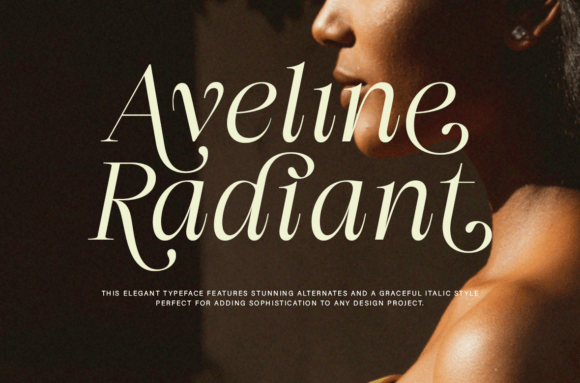
Unleash Your Creativity with Aveline Radiant Font
Remember the moment when you spent hours perfecting your design, only to feel like something was missing? That’s when the perfect font can make all the difference. For designers seeking to elevate their creative projects with timeless beauty and refined elegance, there’s Aveline Radiant Font – a luxurious serif typeface designed to leave a lasting impression.
This exquisite font features stunning stylistic alternates and graceful italic curves, making it perfect for branding, editorial layouts, wedding invitations, and premium visual identities. Aveline Radiant Font is a valuable addition to any designer’s toolkit, offering both beauty and versatility in equal measure. Whether you’re looking to create a sophisticated logo or a stunning wedding invitation, this font is sure to help you achieve your creative vision.
Aveline Radiant Font Key Features
- Font Family: Aveline Radiant Font is a unique, high-quality font with a radiant and elegant feel.
- Character Set: Includes a comprehensive set of characters, including Latin, Cyrillic, and Greek alphabets, as well as punctuation and symbols.
- Size: Available in 4 different font sizes: Light, Regular, Medium, and Bold, allowing for flexibility in design and typography.
- Unique Characteristics: Aveline Radiant Font features a distinctive, hand-drawn style with subtle flair and texture, adding a touch of sophistication to any design.
Aveline Radiant Font Review
I recently had the chance to work with Aveline Radiant Font, and I must say it’s been a delightful experience. ✨ The font’s elegant, refined design immediately caught my attention, and it’s perfect for any project that requires a touch of sophistication.
Here are some of the things that work well with Aveline Radiant Font:
- ✨ Elegant and refined design, perfect for high-end projects
- ✨ Highly legible, even at smaller font sizes
- ✨ Works well in both digital and print media
- ⚠️ Limited font weights and styles, which might limit its versatility
- ⚠️ Some users may find the font too ornate, which can be distracting in certain contexts
Overall, I’m impressed with Aveline Radiant Font’s unique design and versatility. While it may not be the perfect choice for every project, it’s definitely worth considering for high-end, elegant designs. With a little creativity, you can achieve stunning results with this font.
Aveline Radiant Font is suitable for various designs, including:
Brand logos and identities
Typography-based art
Editorial and magazine designs
Tips for Getting the Most Out of Aveline Radiant Font
To get the most out of Aveline Radiant Font, follow these tips:
Use it sparingly to create a bold, eye-catching effect.
Pair it with contrasting colors to enhance its radi
Alternatives to Aveline Radiant Font
Great Vibes Font is a modern, elegant, and stylish script font that is perfect for creating a luxurious and high-end feel. It’s ideal for use in branding, advertising, and packaging designs where a touch of sophistication is required.
Compared to Aveline Radiant Font, Great Vibes Font has a more refined and polished look, making it suitable for high-end designs. However, it lacks the playful and whimsical feel of Aveline Radiant Font.
Pacifico Font is a beautiful and elegant script font that is reminiscent of the Pacific Ocean. It’s perfect for use in designs that require a sense of relaxation and tranquility, such as travel and wellness branding.
Compared to Aveline Radiant Font, Pacifico Font has a more laid-back and casual feel, making it suitable for designs that require a sense of calmness. However, it lacks the energy and playfulness of Aveline Radiant Font.
What font sizes and styles are available in Aveline Radiant Font?
Aveline Radiant Font includes a range of font sizes and styles, including Regular, Italic, Bold, and Bold Italic. The font also supports font sizes from 8pt to 72pt, making it suitable for a variety of design applications.